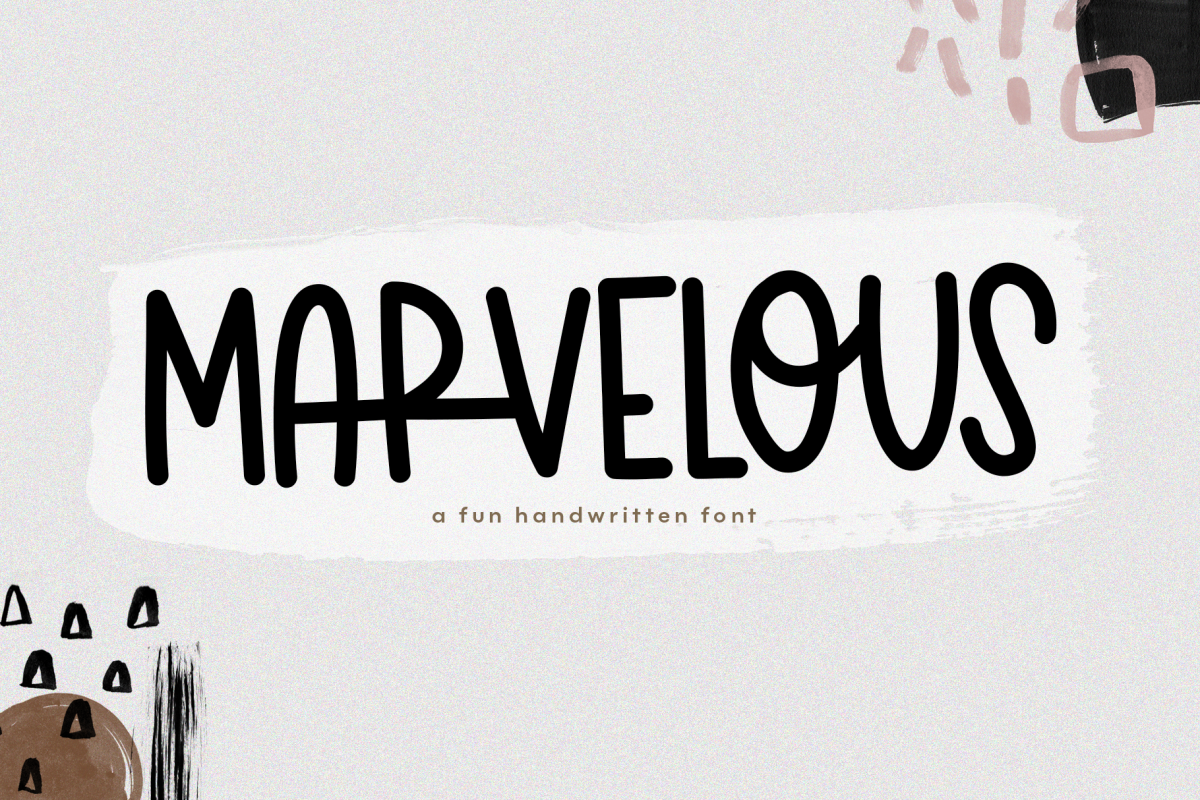
Marvelous - A Fun & Quirky Handwritten Font
Marvelous
Marvelous is a fun & quirky handwritten font.
This font is perfect for quotes, shirts, mugs, headings, logos, invitations and more!
This font does include accent characters.